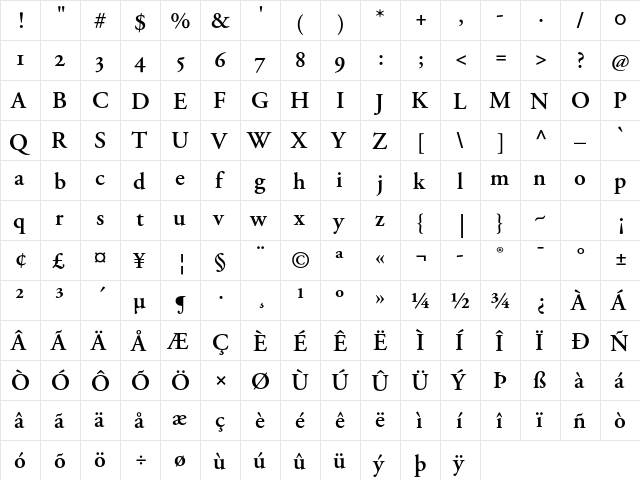
Hipermestra Demibold
Design Context for Hipermestra Typeface
Hipermestra takes a measured approach to typography — its balanced proportions and neutral character make it a reliable workhorse for both digital and print work. The heavy weight commands attention and anchors typographic hierarchies.